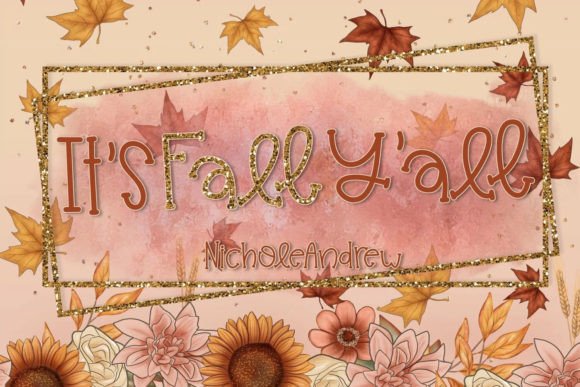
Introduce yourself to the charming world of It's Fall Y'all Font, a captivating script font family crafted by the talented NicholeAndrew. This delightful font is the embodiment of autumn's magic, capturing the cozy essence and vibrant hues of the season. It's Fall Y'all Font is not just a font; it's an invitation to embrace the beauty of the changing seasons, to revel in the crisp air and the kaleidoscope of colors that paint the world around us.
With its playful handwritten style, It's Fall Y'all Font adds a touch of whimsy and charm to any project. The carefully crafted alternates for double letters, like "ll" and "oo," create a truly unique and engaging look that will make your designs stand out from the ordinary. Whether you're creating a personalized water bottle, designing a heartwarming decal, or crafting a heartfelt greeting card, It's Fall Y'all Font is the perfect choice to infuse your creations with warmth and cheer.
Step into the enchanting world of It's Fall Y'all Font and discover the endless possibilities it holds. Let your creativity soar as you design projects that capture the essence of autumn's magic. Embrace the beauty of the season and share the joy with the world through your stunning creations.